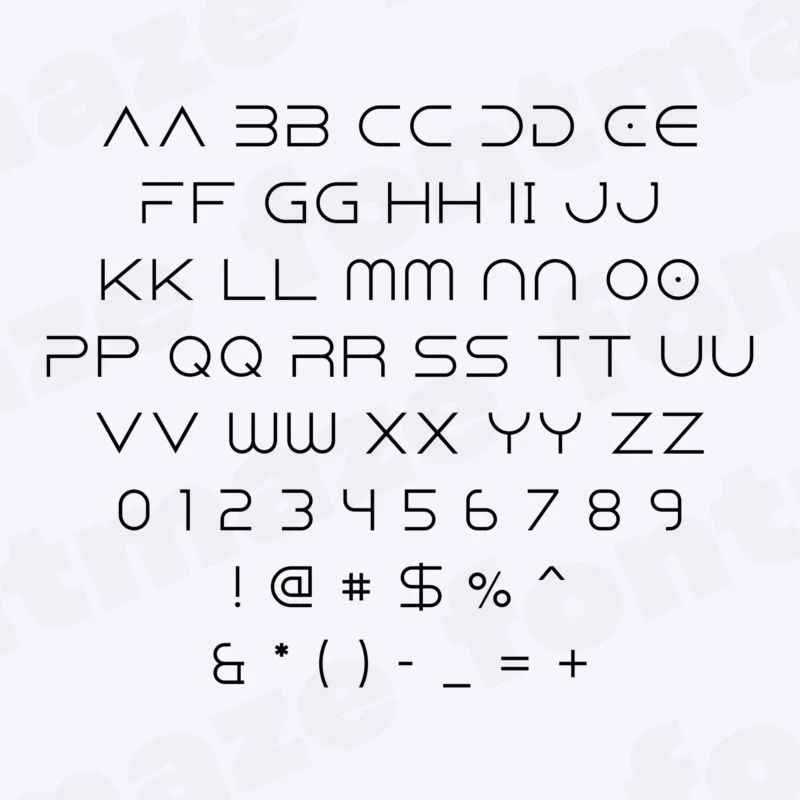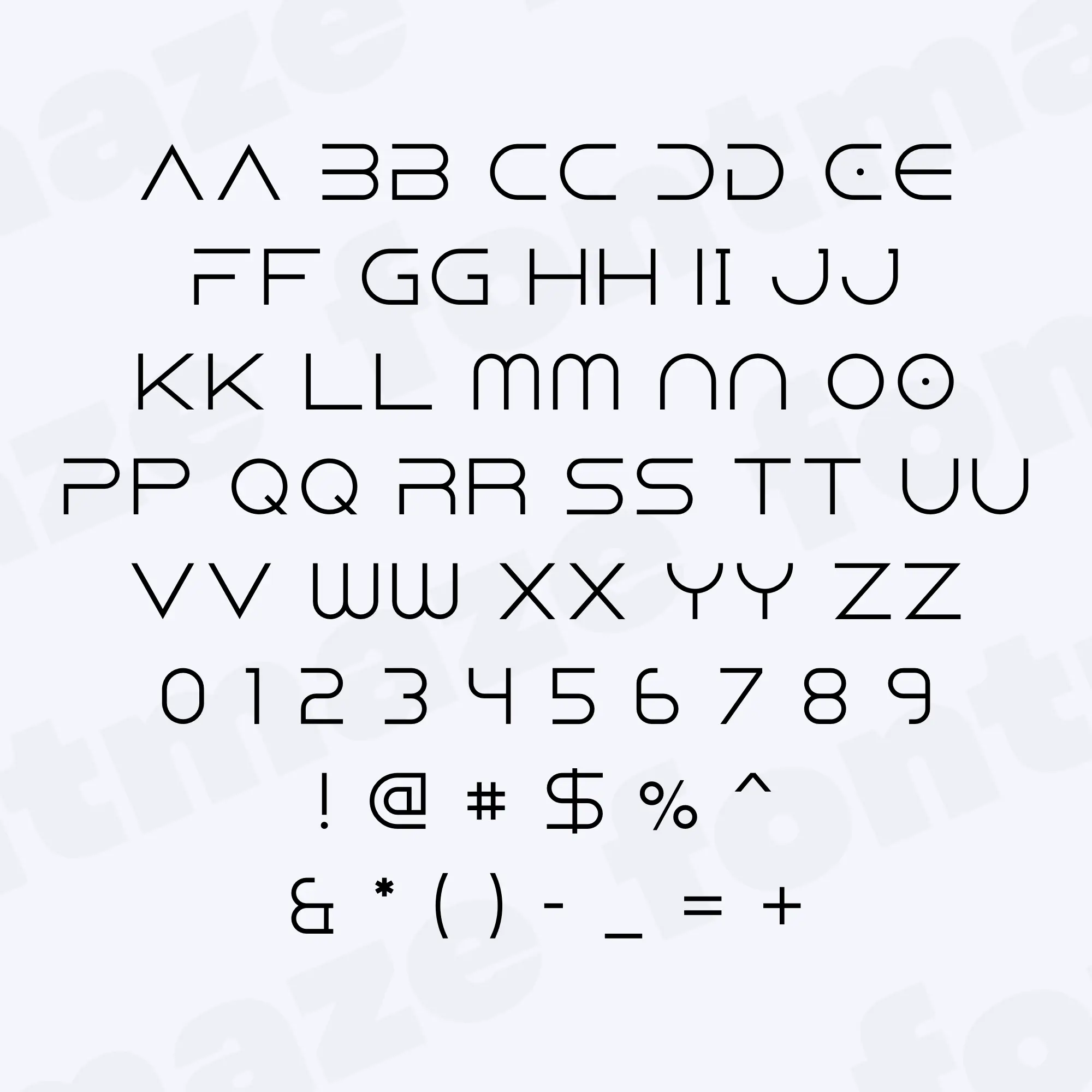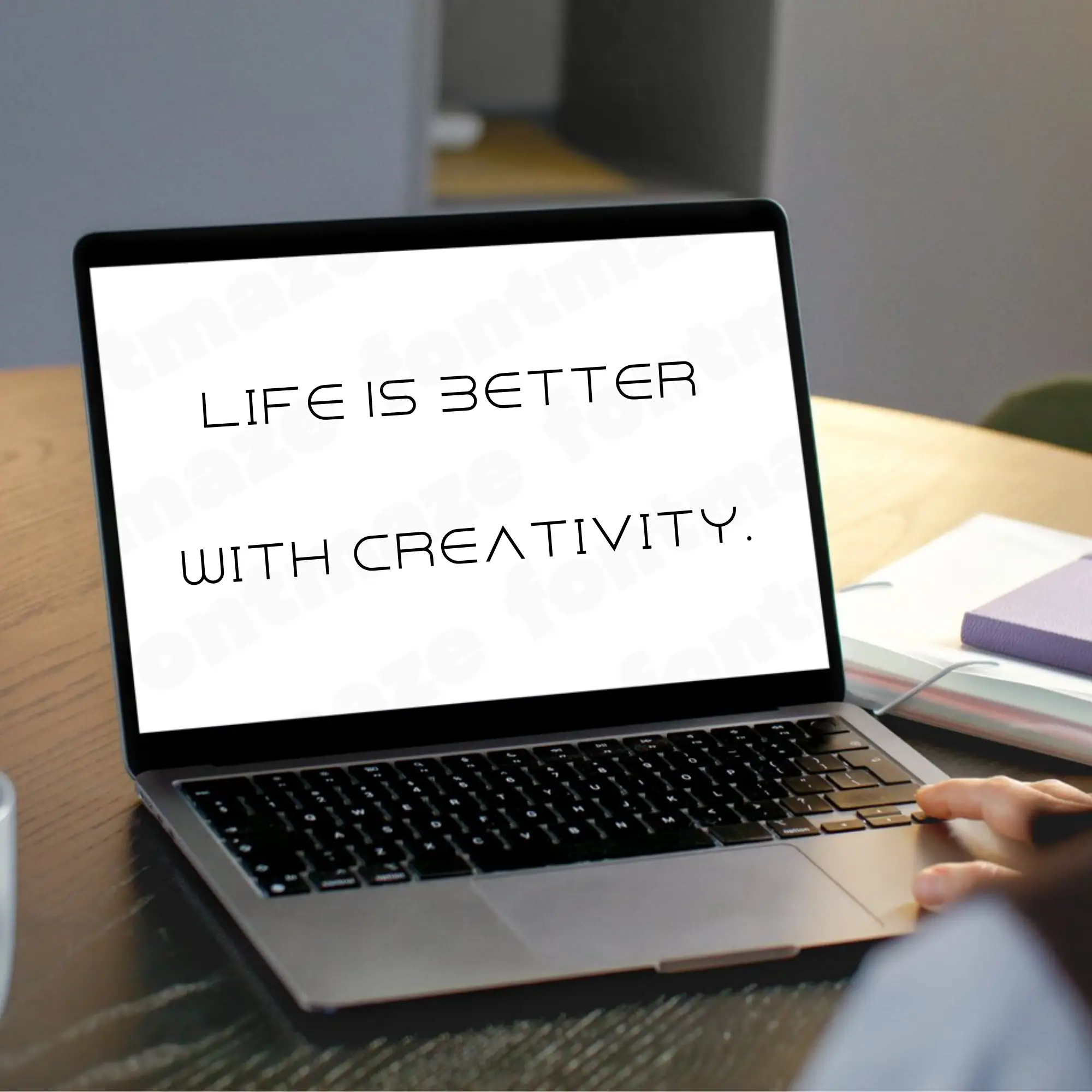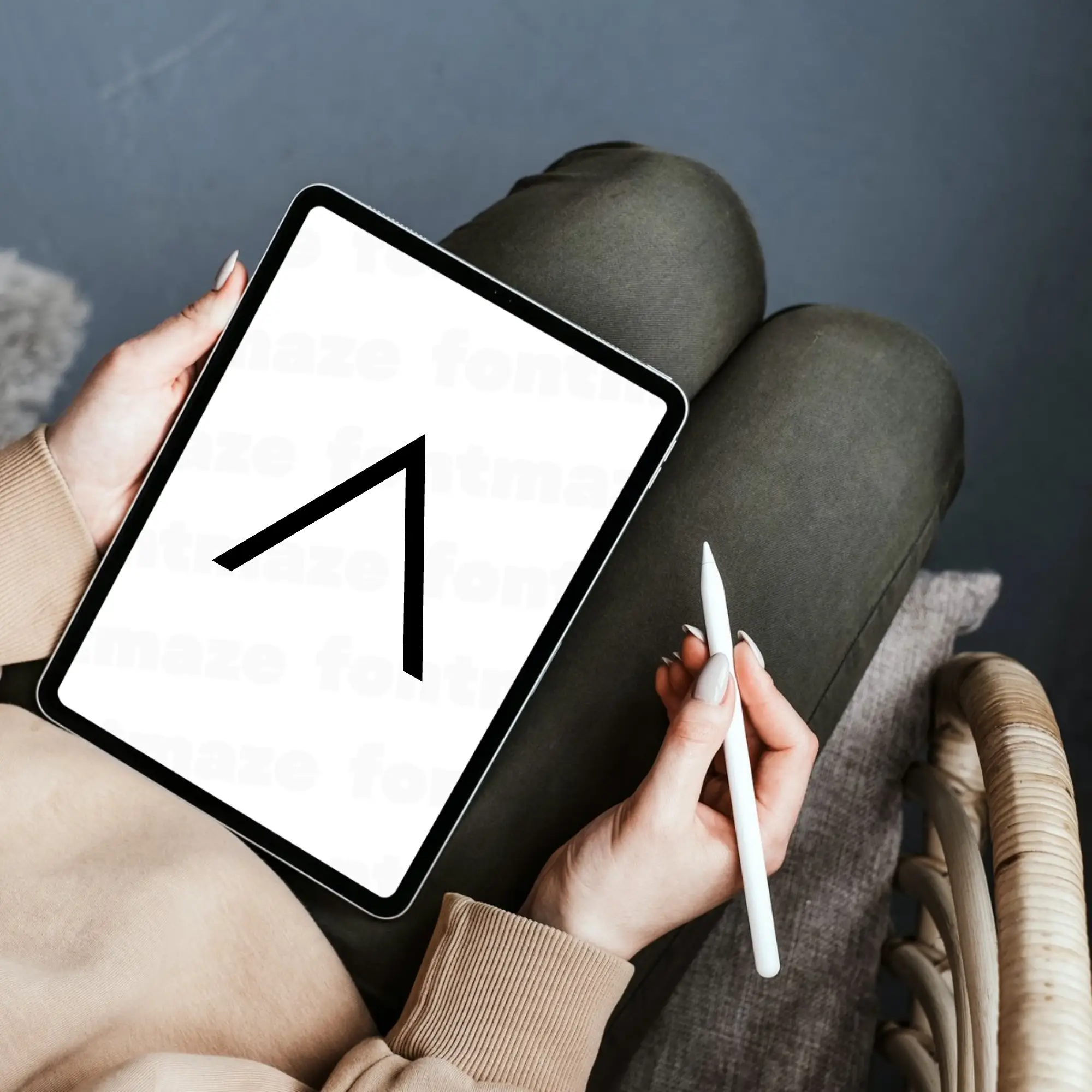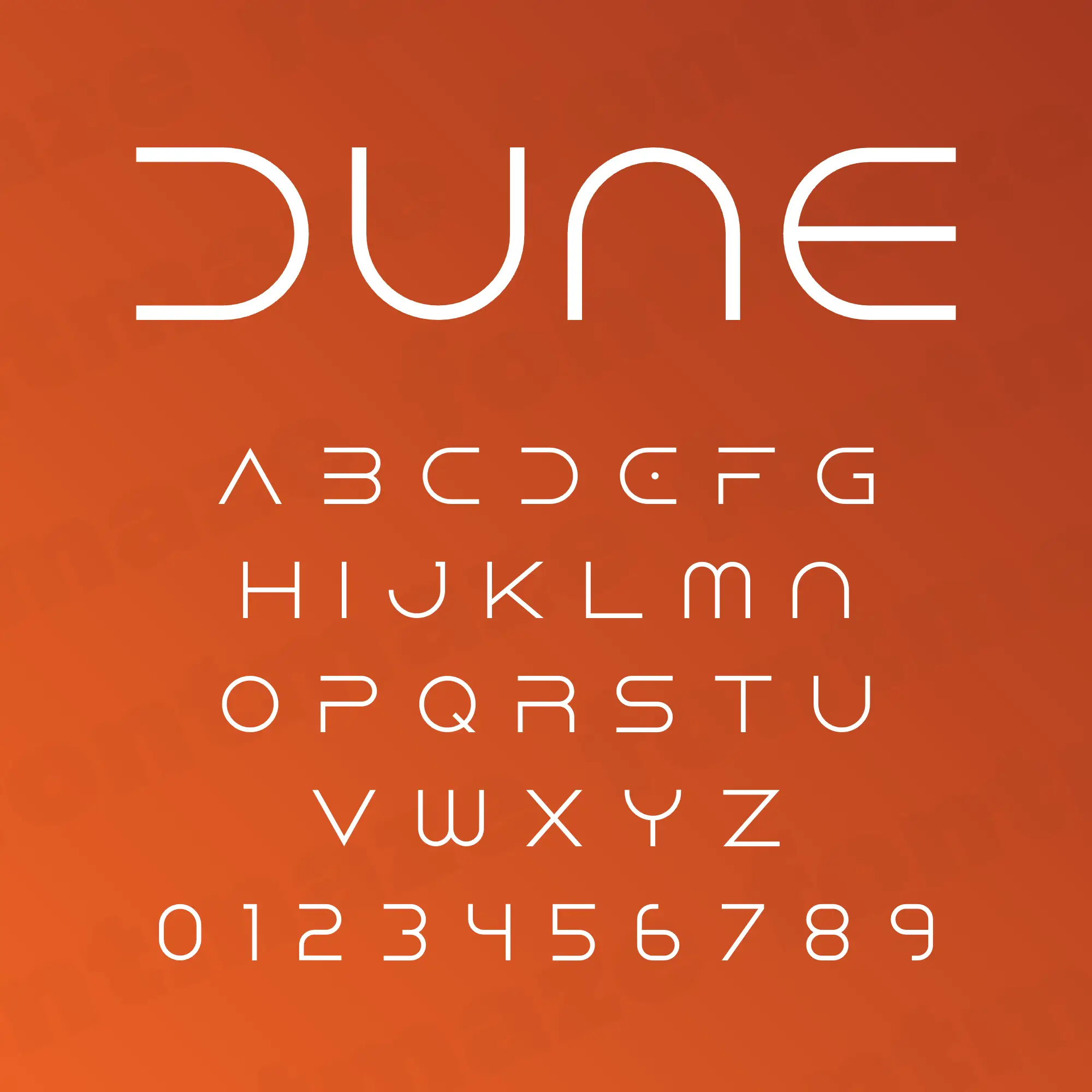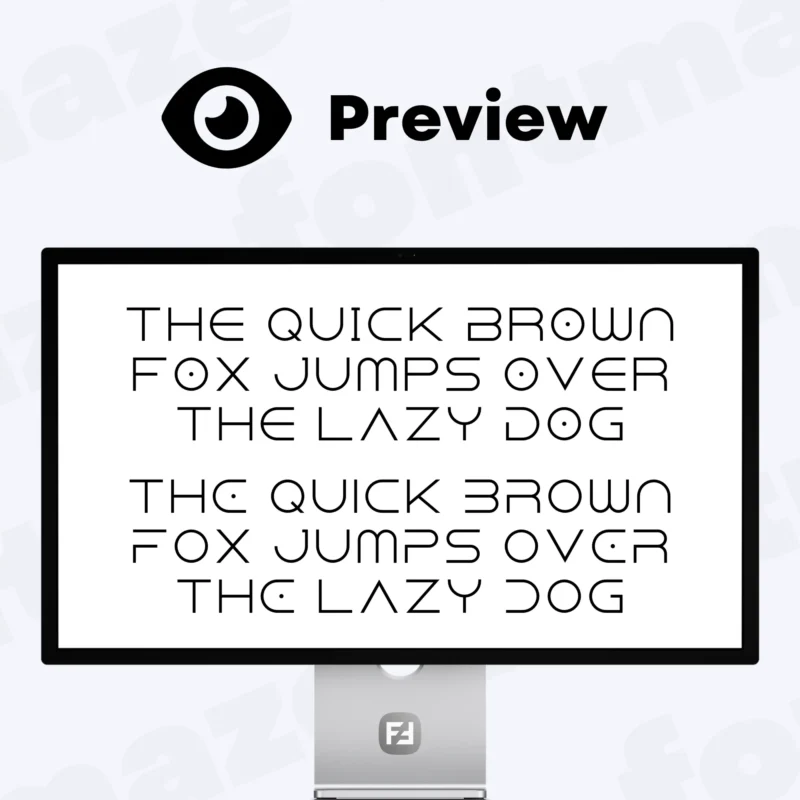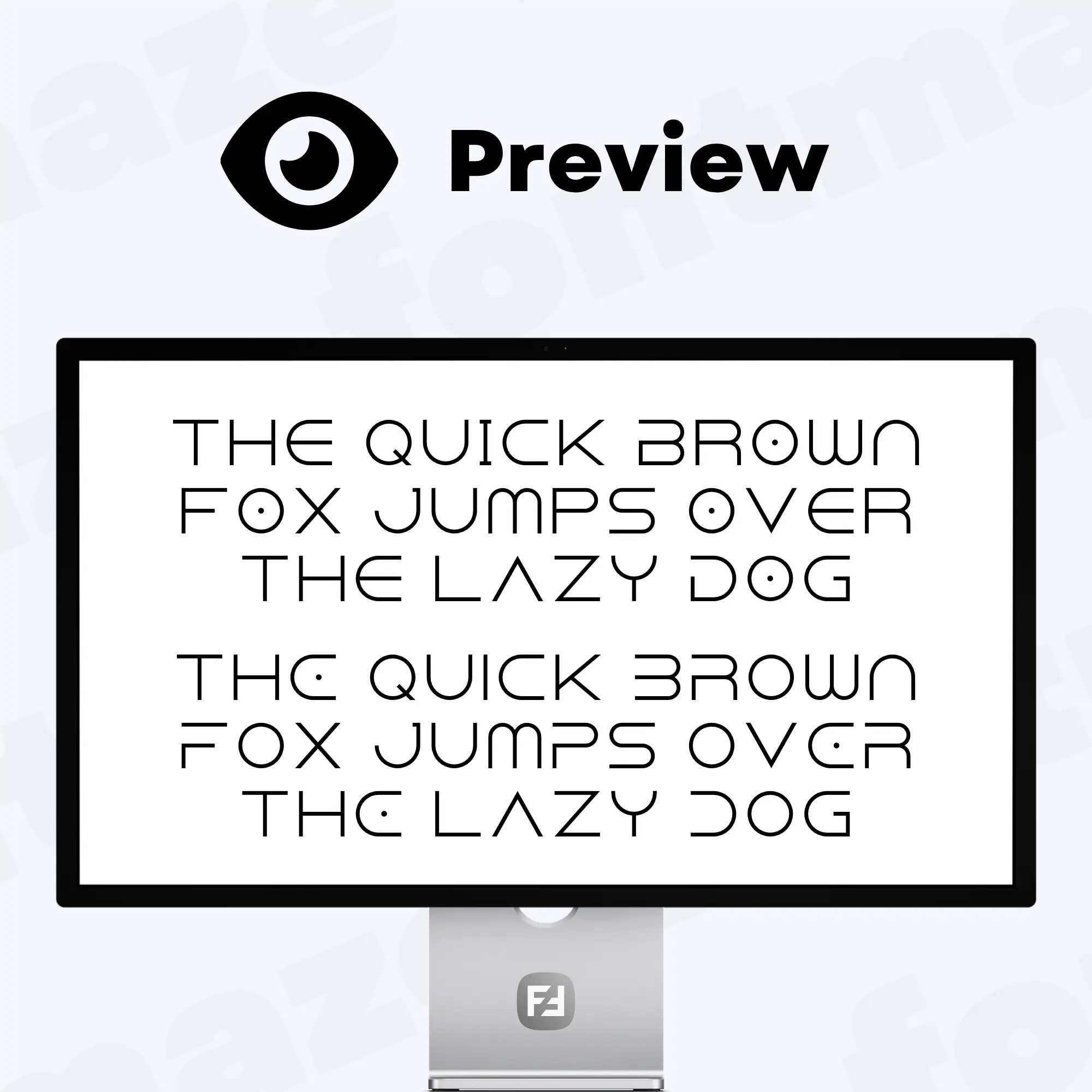
Our Dune movie Font, a Sci-fi Style Typeface
Make your next project stand out with our Dune movie font – a flexible and stylish typeface made for everyone.
Handcrafted in our studio with care and attention to detail, the Dune movie font brings a unique, personal touch to your designs.
Start designing instantly with the Dune movie font, perfect for social media graphics, printable crafts, digital downloads, and creative projects of all kinds.
The Dune movie font was independently created by FontMaze.
Used the Dune Font for a quick sci-fi logo and it just felt right. Didn’t have to mess with the spacing, and it printed clean… really happy with it.